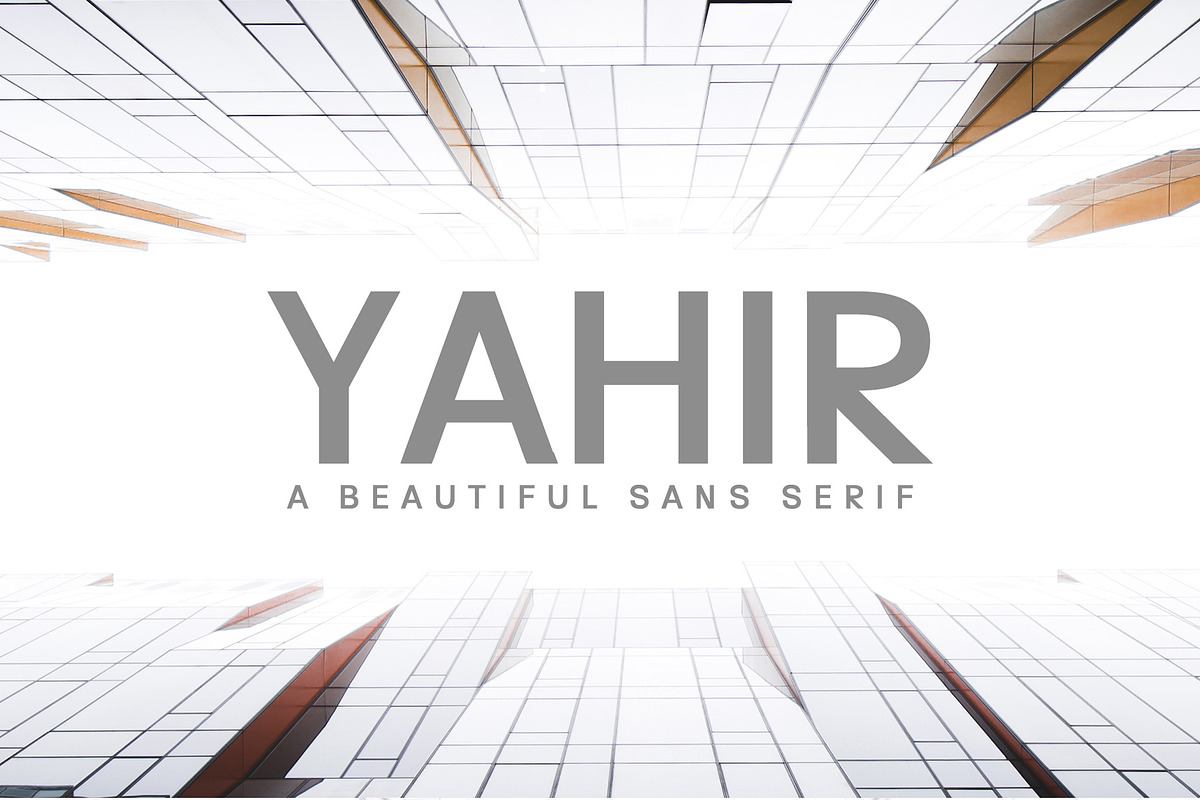
Yahir Sans Serif Font Family Free Download is a clean, modern, and highly versatile typeface designed for professional use across a wide range of design projects. With multiple weights and styles included, Yahir is perfect for branding, corporate identity, web design, editorial layouts, UI/UX interfaces, and marketing materials.
Its geometric structure and balanced proportions ensure excellent readability at any size, while its minimal yet stylish appearance gives your work a polished and contemporary feel. Whether you're creating bold headlines or clear body text, Yahir offers consistency and sophistication throughout.